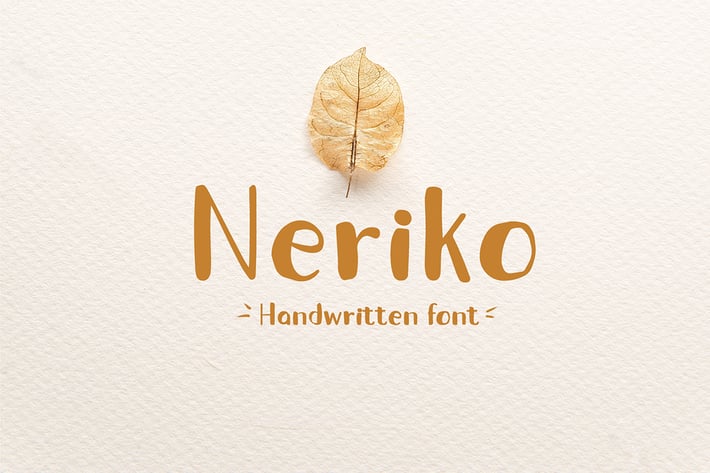
Neriko - Handwritten Font
Introducing Neriko, a simple handwritten font.
So perfect for you who needs a typeface for logo designs, magazine, social media, brochure, and many more.